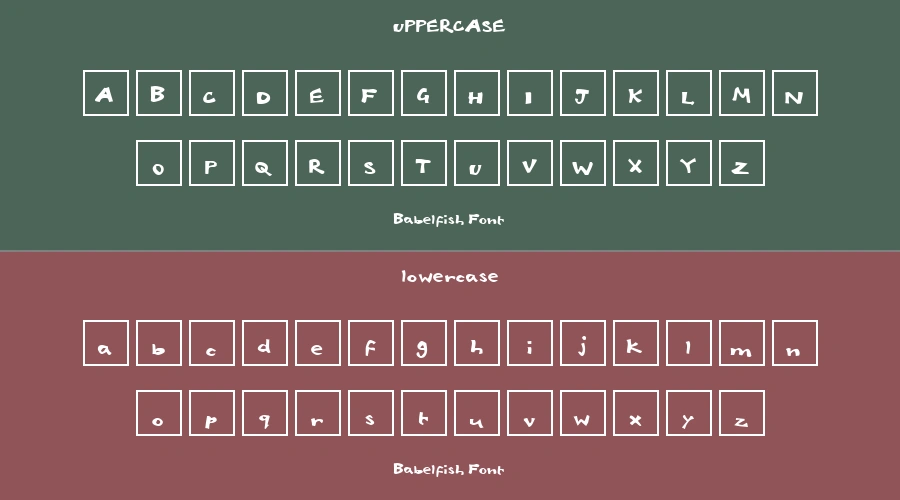
About Babelfish Font
Babelfish Font embodies typographic excellence through its masterful combination of unique personality and consistency. Created for merchandise graphics, this typeface delivers exceptional value and historical accuracy across all applications. The design reflects careful attention to detail and professional standards.
Advanced capabilities include distinctive fluid motion and versatile case-sensitive forms, giving designers creative control. When used in identification tags, Babelfish Font exhibits remarkable consumer preference. The harmonious balance between contrast level and emotional resonance sets this typeface apart.